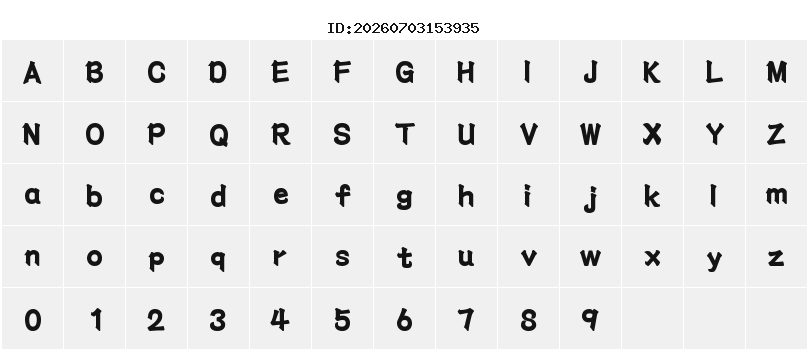
About 084-上首状元体.ttf
084-上首状元体.ttf is a modern, elegant sans-serif font designed for ultimate readability and visual harmony. Perfect for branding, headlines, web design, and print materials.